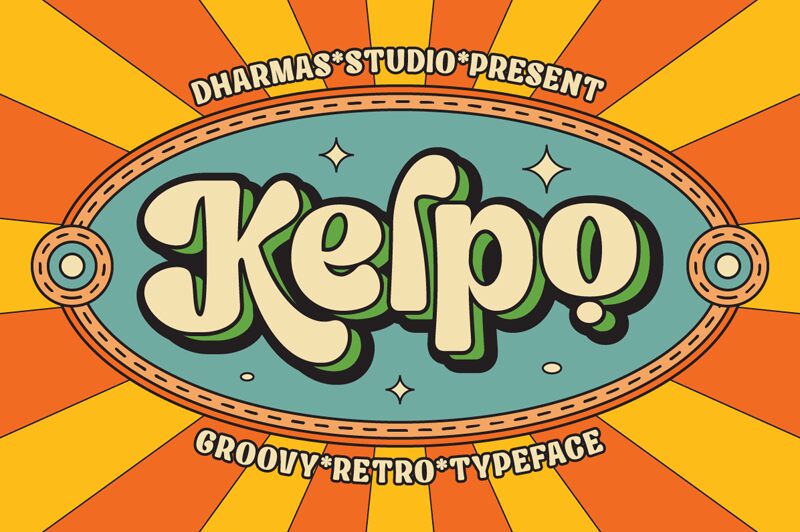
Kelpo, designed by Dharmas Studio, is a captivating display font that exudes a retro and groovy vibe. With its bold weight, Kelpo adds a sense of confidence and vibrancy to any design project it graces.
Its unique style makes it perfect for creating eye-catching posters, album covers, or even vintage-inspired logos. The boldness of Kelpo demands attention and ensures your message stands out from the crowd.
Let this font transport your audience back in time while giving your designs a touch of modernity.